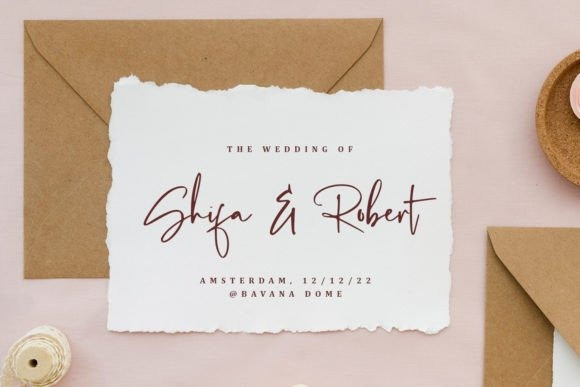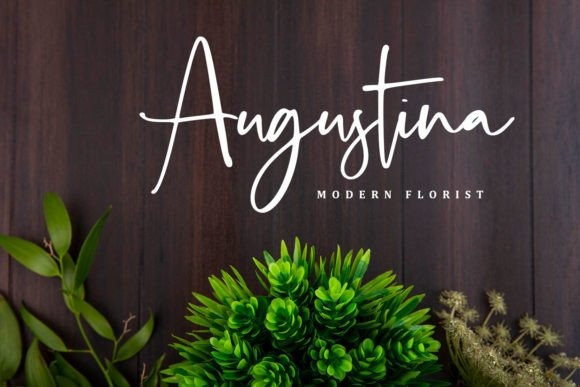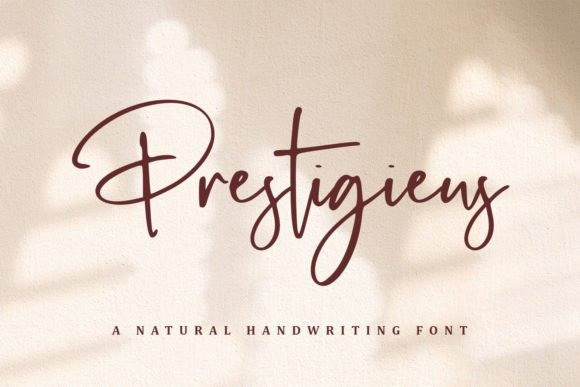
Prestigieus Font
Prestigieus Font is a dazzling script font. This font is neatly crafted and highly detailed. Whatever the topic, this font will be a wonderful asset to your font library, as it has the potential to enhance any creation.